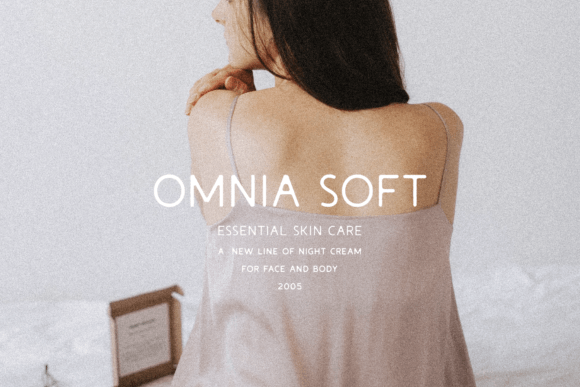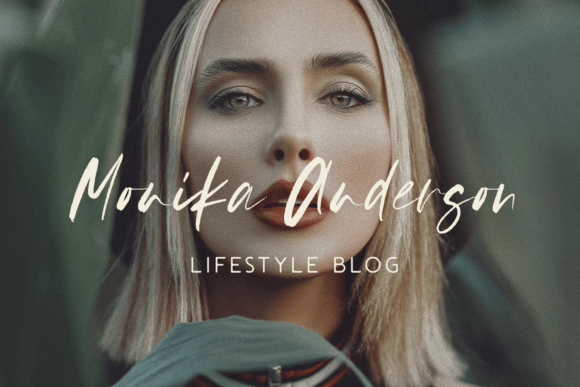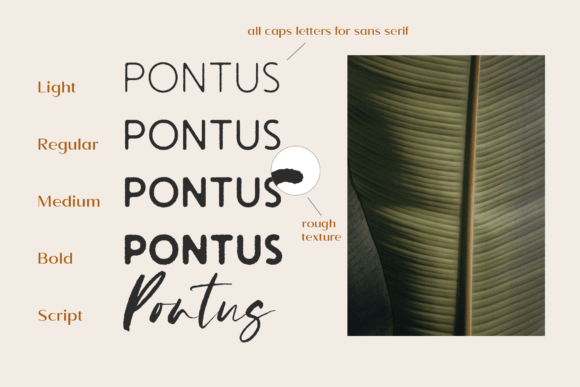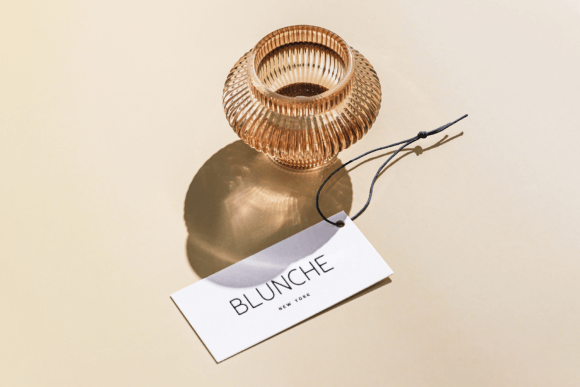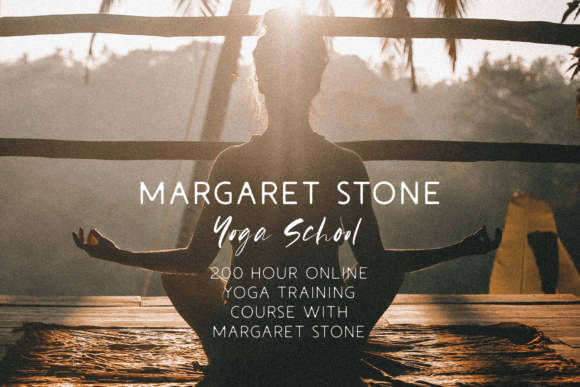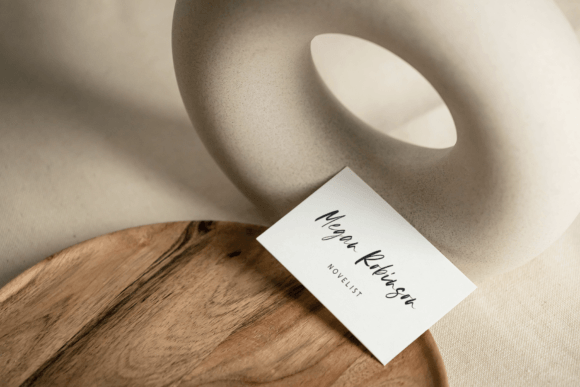
Introduction to Pontus Font
Pontus is a modern font family that includes a brush script and an ink sans serif in four weights (light, regular, medium, and bold).
The Sans font has a rough texture and includes only uppercase letters, the script also has a rough texture and imitates a brush, it also includes alternates for lowercase letters and some ligatures, together they create an excellent pair and work well together Perfect for creating logos, short text messages, headlines, branding, book covers, magazines, flyers, etc.